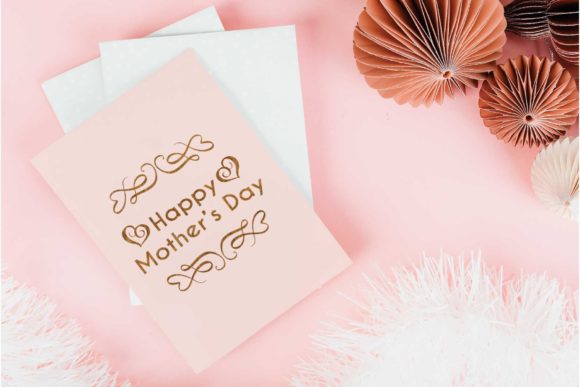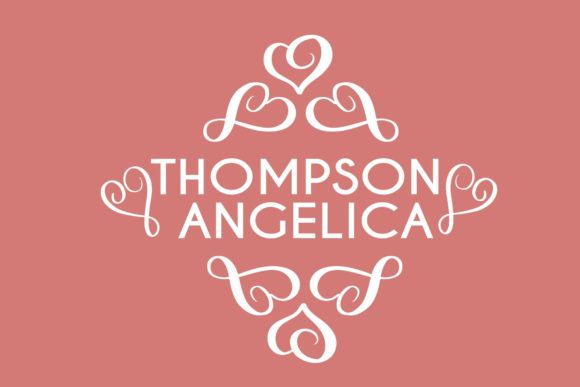
Introduction to Love Dingbats Font
Have you ever been stuck on a creative project, searching for that perfect finishing touch? Maybe you’re crafting a heartfelt Mother’s Day card or a birthday gift for a loved one. Whatever the occasion, the right design resource can make all the difference. That’s where the Love Dingbats Font comes in – a charming and endearing typeface that’s sure to capture the essence of your emotions.
With its delightful, hand-drawn elements and transparent background, this free download is a valuable addition to any designer’s toolkit. Whether you’re a seasoned pro or a budding artist, the Love Dingbats Font offers a high-quality, versatile solution for your next creative project. Its cute and friendly design makes it perfect for adding a touch of whimsy and romance to your work.
Key Features of Love Dingbats Font
- High-quality design resource ideal for creative projects and designs.
- Features a transparent background, allowing for easy customization and versatility.
- Includes a range of unique and intricate dingbat designs to add visual interest to any project.
- Designed to be scalable, with a resolution of up to 300 DPI for high-quality printing.
- Includes a comprehensive character set, including uppercase and lowercase letters, numbers, and punctuation.
- Perfect for designers, artists, and writers looking for a unique and eye-catching design element.
Honest Review: Love Dingbats Font
As a designer, I’m always on the lookout for unique and high-quality design resources to elevate my creative projects. Recently, I came across the Love Dingbats Font, and I must say, it’s a hidden gem. ✨
The font is free to download, making it an excellent resource for designers on a budget or those who want to experiment with new ideas. The transparent background feature is a big plus, allowing for seamless integration with other design elements. I appreciate the attention to detail in the font’s design, which gives it a professional and polished look.
Here are some pros and cons I’ve observed:
- ✨ Unique and playful design that adds a touch of whimsy to any creative project
- ✨ High-quality font that’s suitable for both digital and print media
- ⚠️ Limited character set, which may not be suitable for lengthy text
- ⚠️ May not be as versatile as other fonts, depending on the project requirements
Overall, I’m impressed with the Love Dingbats Font’s potential to add a touch of personality to my designs. While it may have some limitations, I believe it’s a valuable addition to any designer’s toolkit. If you’re looking for a unique and high-quality font for your creative project, I’d definitely recommend giving the Love Dingbats Font a try.
The Love Dingbats Font is perfect for a wide range of creative projects, including wedding invitations, party decorations, and social media graphics. It’s also great for adding a touch of whimsy to business presentations or documents.